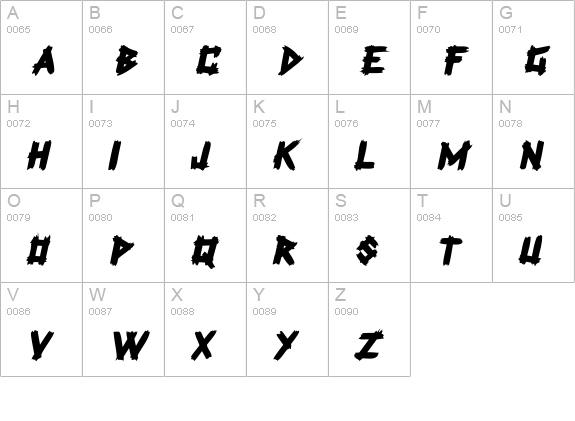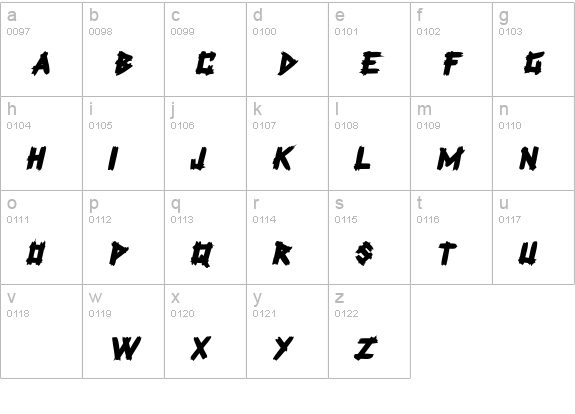
BarwoodSCapsSSK BoldItalic Font Details
BarwoodSCapsSSK BoldItalic font exudes a strong and dynamic presence with its bold and slanted design. The combination of sharp edges and elegant curves gives this font a unique and striking aesthetic that is perfect for making a statement. Whether used in headings, logos, or other design projects, BarwoodSCapsSSK BoldItalic commands attention and adds a touch of sophistication. The best part is that BarwoodSCapsSSK BoldItalic font is available for free download at FontsMarket.com. This means that you can easily access and use this eye-catching font in your projects without any cost. Don't miss out on the opportunity to enhance your designs with the bold and italic flair of BarwoodSCapsSSK - download it now and take your creativity to the next level!